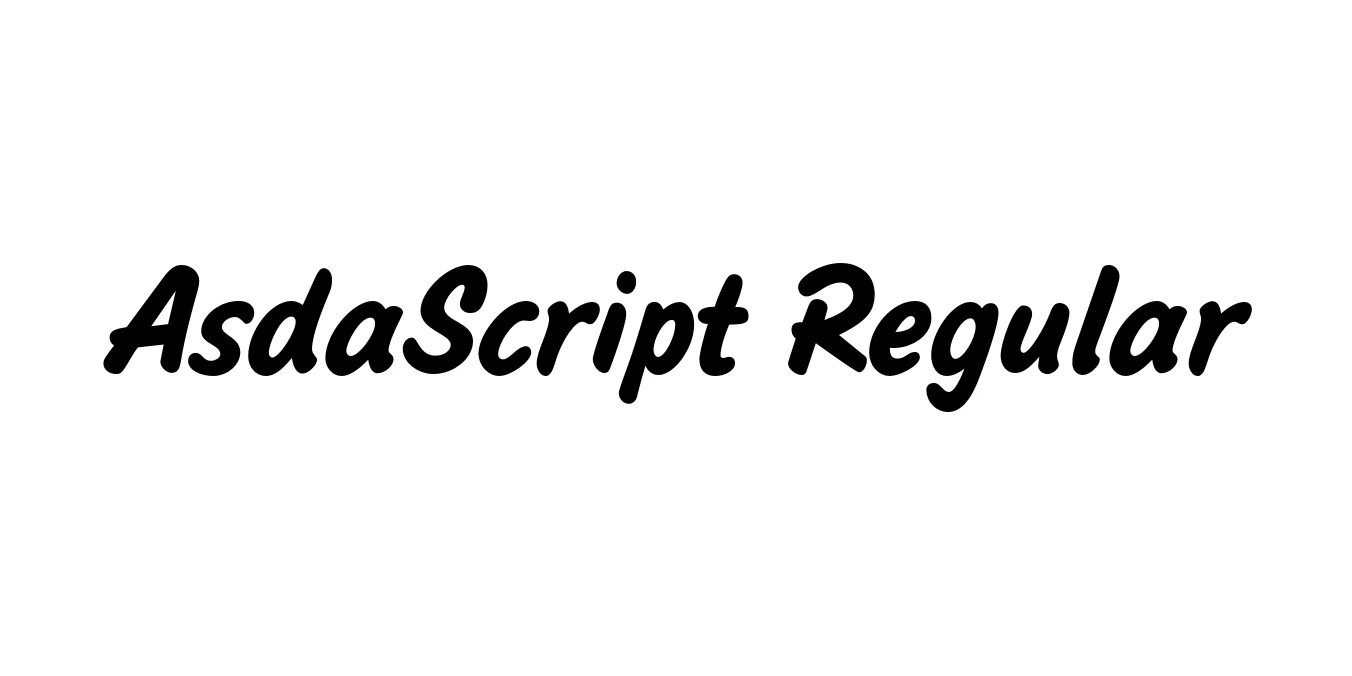
AsdaScript Regular
Designed by Samyon
| Font Name | AsdaScript |
| Category | Script / Handwriting |
| Designer | Samyon |
AsdaScript Regular is a flowing, script-style typeface designed to mimic the natural rhythm and elegance of human handwriting. It features smooth connections and balanced weights that allow for a cohesive and rhythmic aesthetic across various platforms. The font is characterized by its approachable and friendly appearance, making it a staple for designers looking to inject a sense of warmth and personality into their creative work.
Over the years, AsdaScript has become a popular choice for informal branding and personalized marketing materials. Its organic strokes and slightly slanted posture evoke a sense of reliability and custom craftsmanship. Whether applied to digital interfaces or printed stationery, the typeface maintains high legibility while providing a sophisticated, hand-drawn feel that bridges the gap between traditional calligraphy and modern typography.
AsdaScript Regular Best Uses
Perfect for wedding or formal party invites due to its elegant cursive flow.
Adds a personalized, boutique feel to brand identities and small business logos.
Enhances the personal touch in both digital and physical stationery products.
Captures user attention with its stylish and organic handwriting appearance.